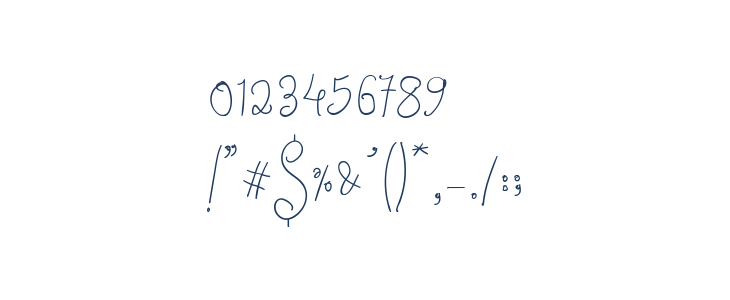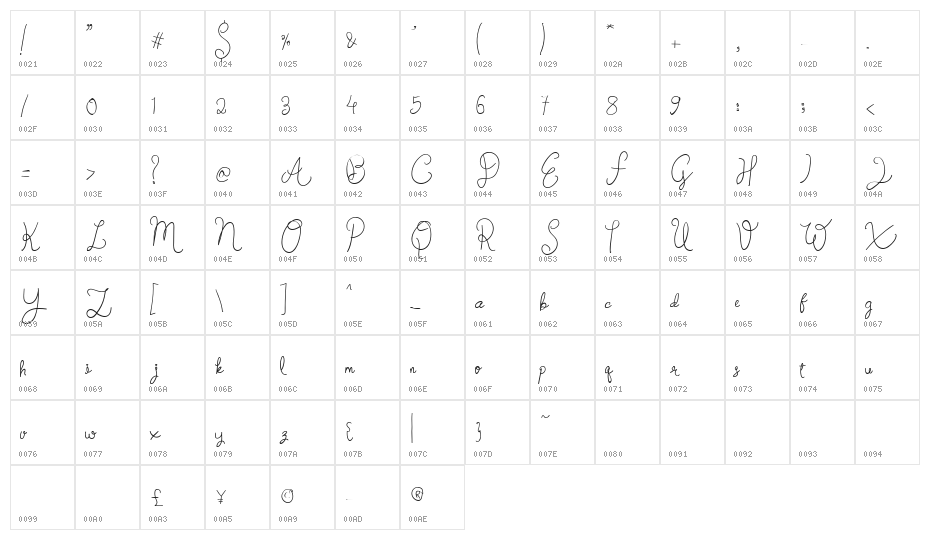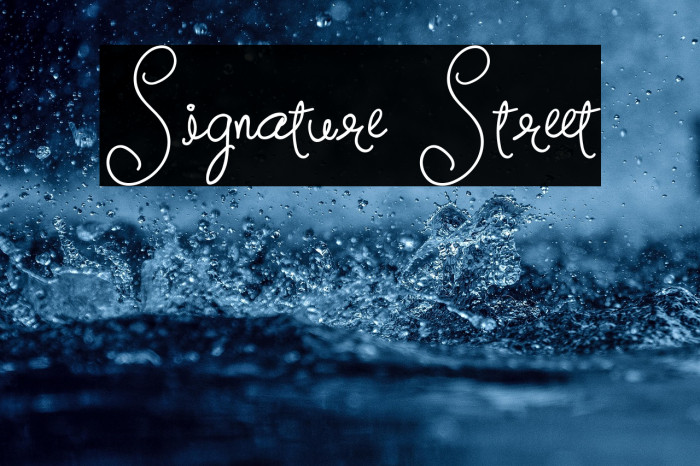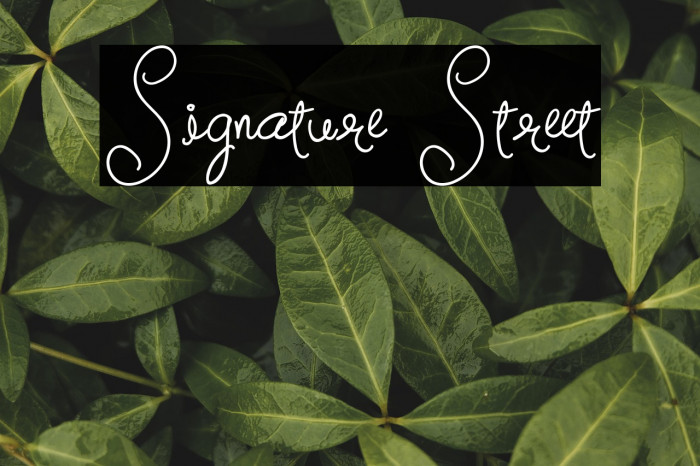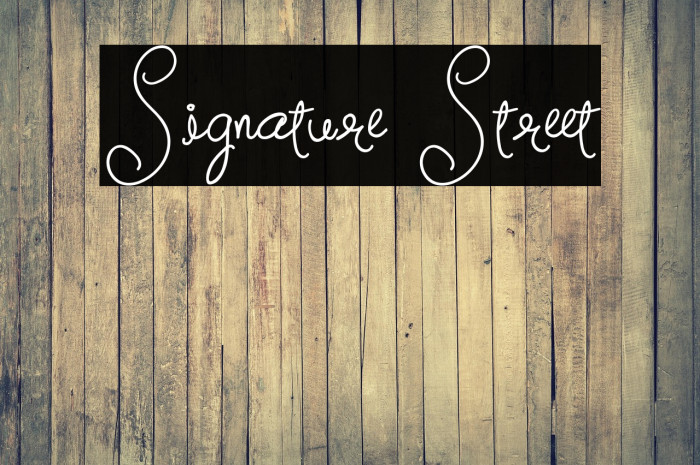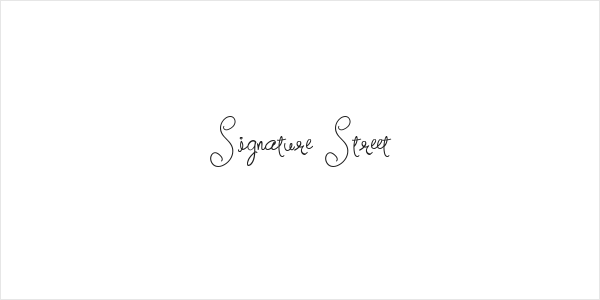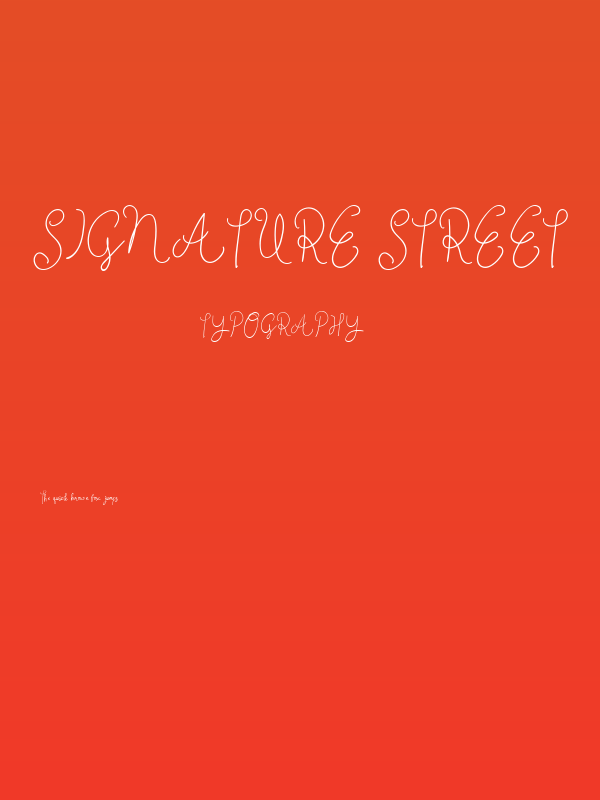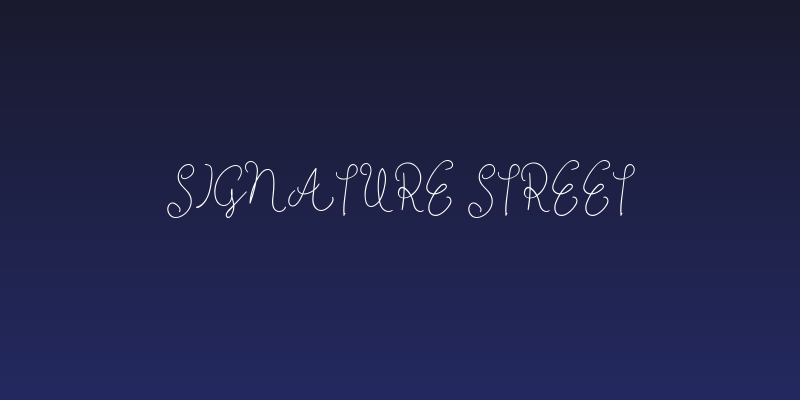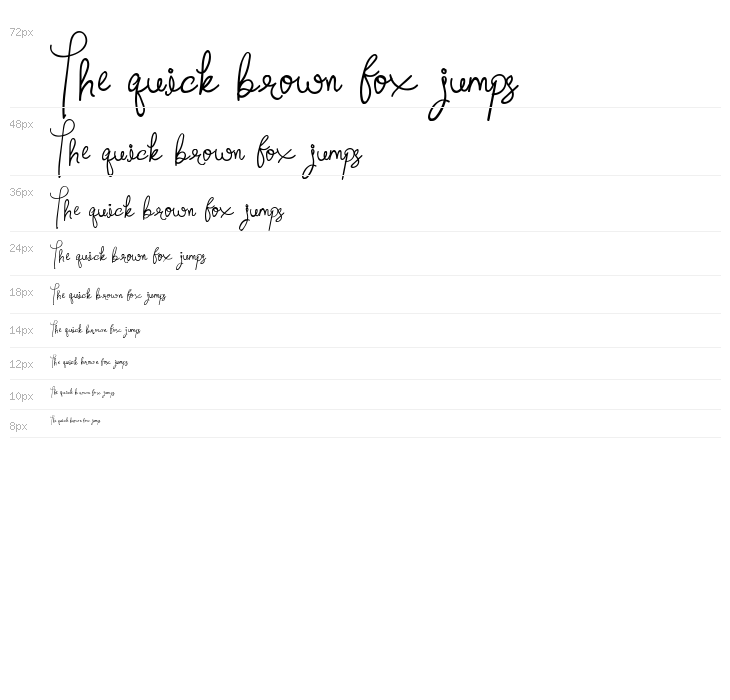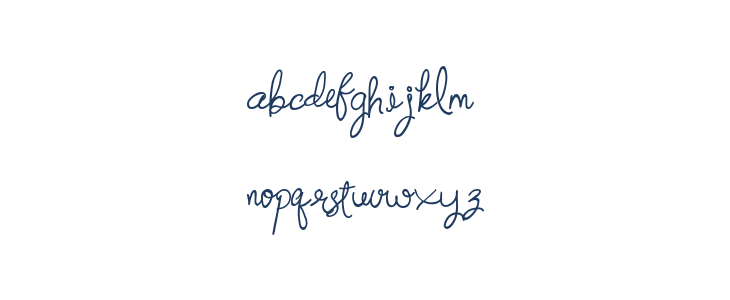
Signature Street Font
Signature Street Description
This font features a handwritten, cursive style with a playful and elegant flair. The uppercase letters are characterized by their flowing lines and loops, giving them a whimsical appearance. The lowercase letters maintain a consistent style, with smooth curves and a slightly informal touch. Numbers are clear and legible, following the same cursive theme. Special characters are creatively integrated, maintaining the overall aesthetic. The font's design is ideal for projects that require a personal, artistic touch, such as invitations, greeting cards, or branding materials. Its unique style stands out, making it suitable for decorative purposes.
Use CaseLogos, Headlines, Decorative text
Proposed ProjectsIdeal for invitations, greeting cards, branding, and decorative projects.